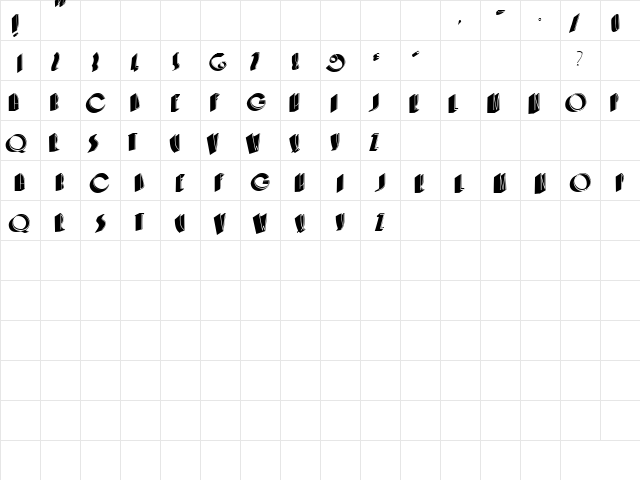
CafeNoirShadow Regular
Design Context for CafeNoirShadow Typeface
CafeNoirShadow is built around its visual character rather than neutral utility — its distinctive forms are designed to make an impression at display sizes.
Font Pairing: Pair with a clean neutral sans-serif for body copy to let CafeNoirShadow's character lead without overwhelming the composition.
Pro Tip: Treat CafeNoirShadow as the centrepiece of your typographic hierarchy. One strong heading set in a decorative face can carry an entire layout.